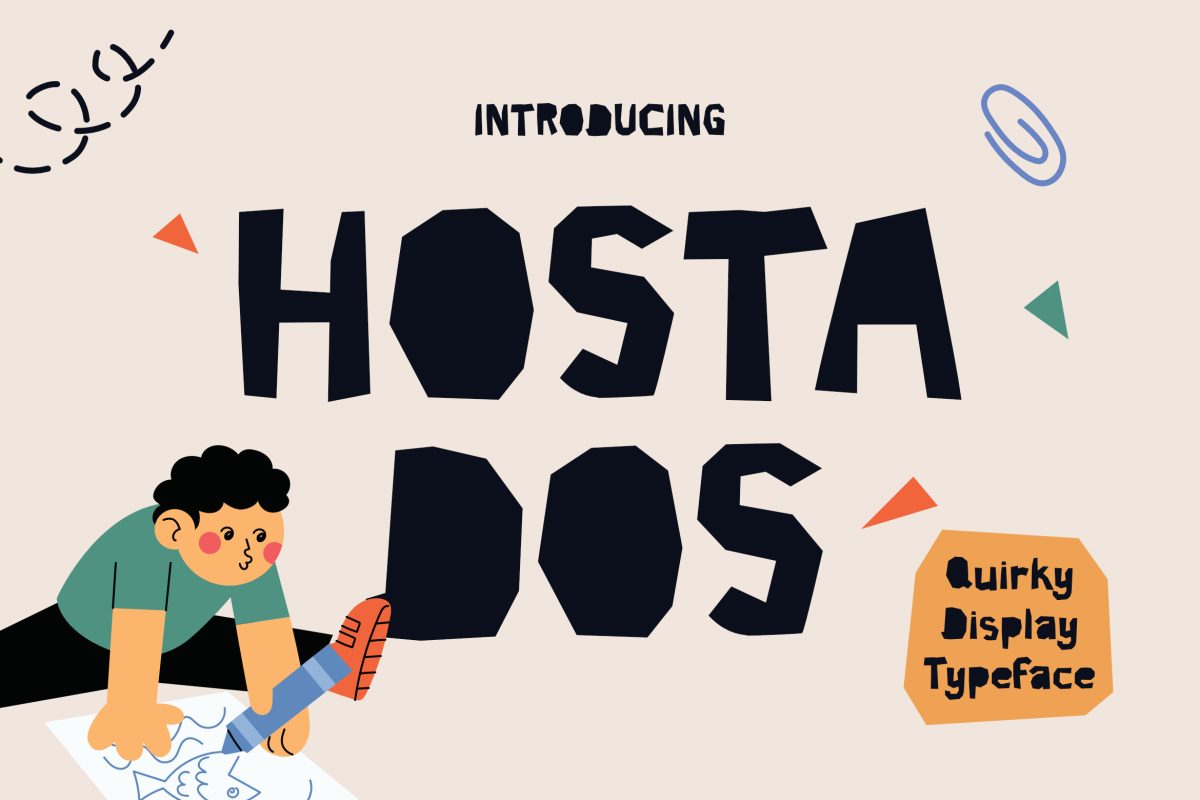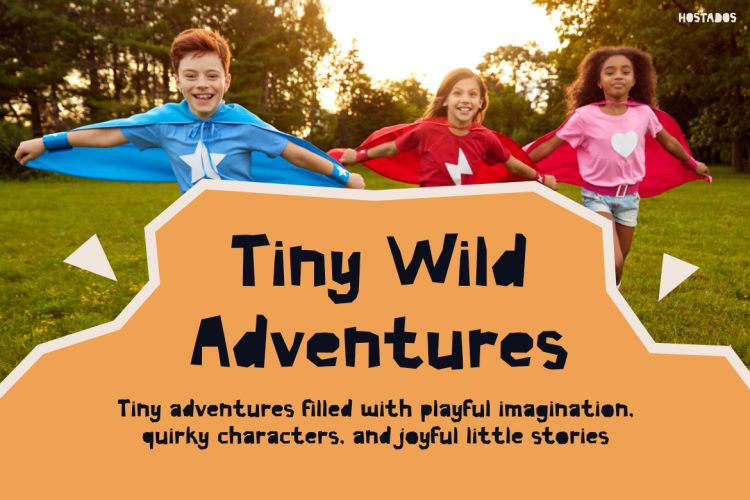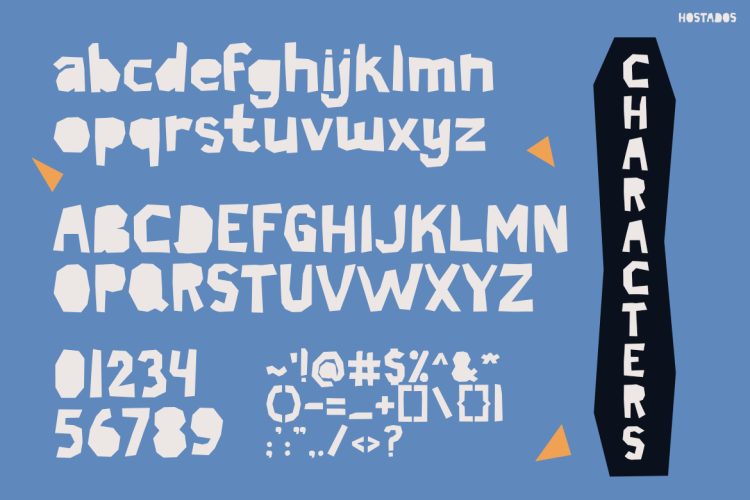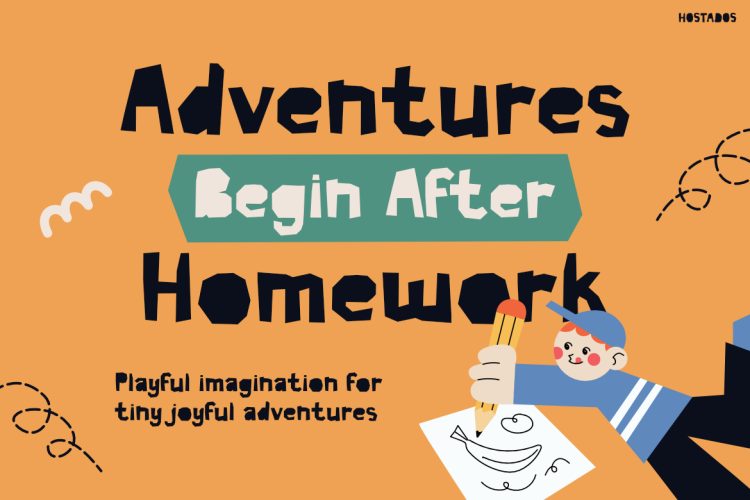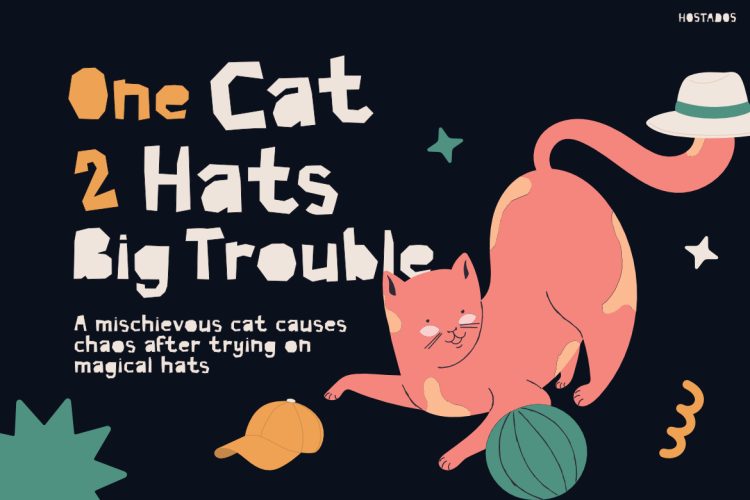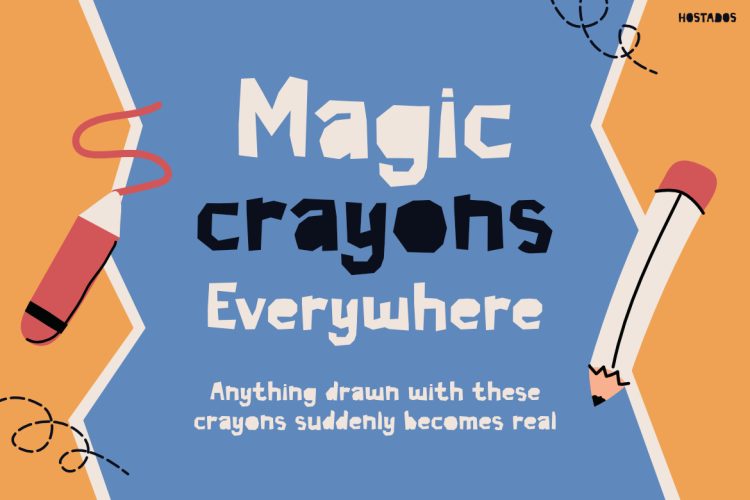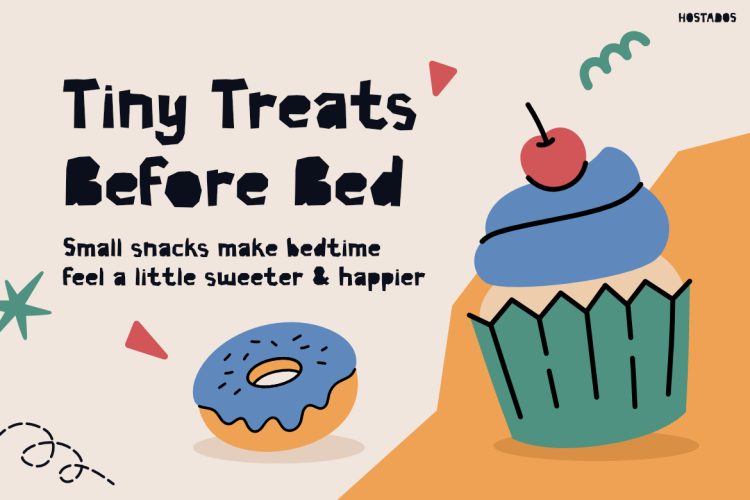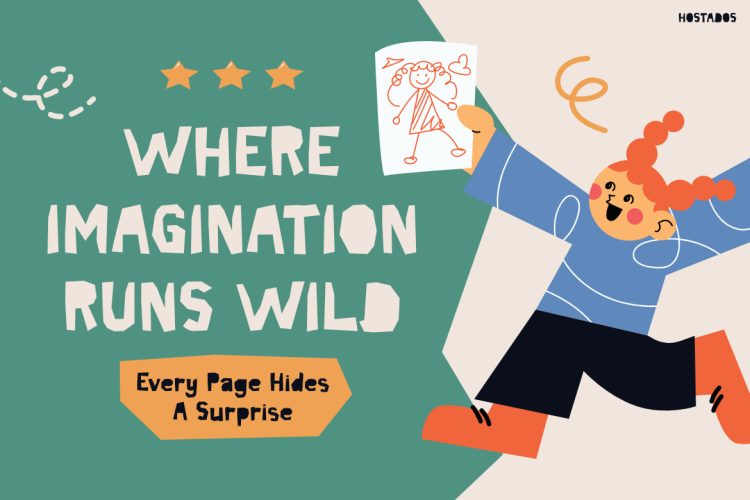
Kids Font Hostados
Hostados โ€“ Playful Kids Display Font
Kids Font Hostados is a fun and quirky display font created to bring cheerful energy and childlike imagination into every design. Inspired by storybooks, doodles, playful adventures, and colorful classroom creativity, this font instantly creates a warm and exciting visual atmosphere. Moreover, Hostados combines chunky irregular shapes with handcrafted cartoon-style details, making every word feel expressive, energetic, and full of personality. Unlike ordinary kids fonts, Hostados delivers a playful handmade aesthetic while still maintaining strong readability across different layouts. Therefore, Hostados becomes the perfect typeface for projects that need joyful creativity mixed with modern playful style.
Why Kids Font Hostados Stands Out
Kids Font Hostados blends cartoon-inspired typography with modern creative functionality. Furthermore, the chunky playful characters help headlines look bold, fun, and impossible to ignore. Thanks to its handcrafted appearance, this font creates a friendly and imaginative atmosphere that instantly connects with kids and family audiences. At the same time, the balanced composition keeps every word readable across both digital and print designs. Besides that, the playful curves and uneven details give typography a natural handmade feel that looks authentic and charming.
Perfect For Who?
c is ideal for graphic designers, illustrators, teachers, toy brands, content creators, and creative entrepreneurs who want typography filled with imagination and playful personality. In particular, this font is highly suitable for:
• Childrenโ€™s book covers
• Toy and game branding
• School and educational projects
• Cartoon-themed posters
• Snack and dessert packaging
• Social media graphics and thumbnails
• Kids merchandise and stickers
• Creative storytelling campaigns
Additionally, brands targeting children, family audiences, or fun lifestyle markets will benefit from its energetic and charming appearance. Therefore, Hostados becomes the perfect solution for projects that need cute visuals combined with bold modern typography.
Turn Every Design Into a Tiny Adventure
Kids Font Hostados is more than just a display font because it transforms ordinary typography into playful visual storytelling. Whether you are creating colorful branding, educational materials, or engaging social media content, this font helps your projects stand out instantly. Moreover, its bold cartoon-inspired style creates a joyful and memorable visual experience that audiences will instantly love. So, if you are searching for a typeface that combines fun energy, creative imagination, and modern playful aesthetics, Hostados is the perfect addition to your collection. Grab it today and make every design feel brighter, cuter, and full of adventure.
Kids Font Hostados is pure tiny chaos โ€” chunky, goofy, cute, and made for storybooks, snack brands, posters, and kidcore vibes.